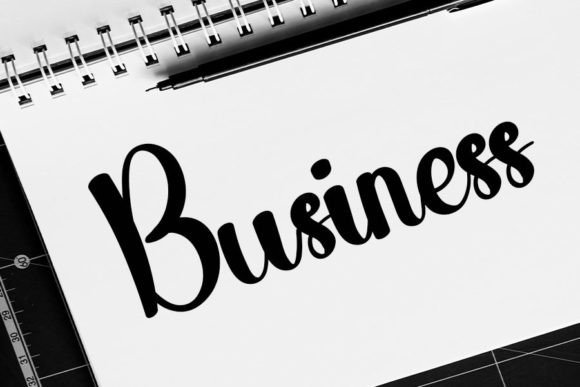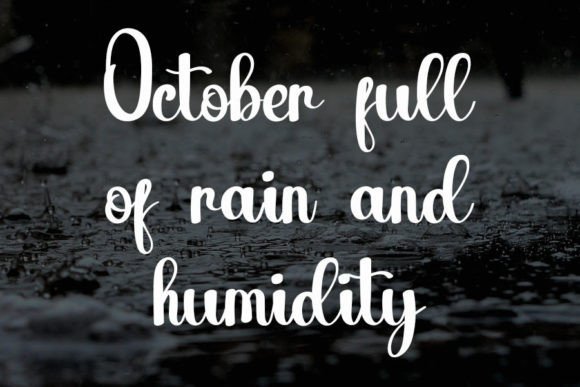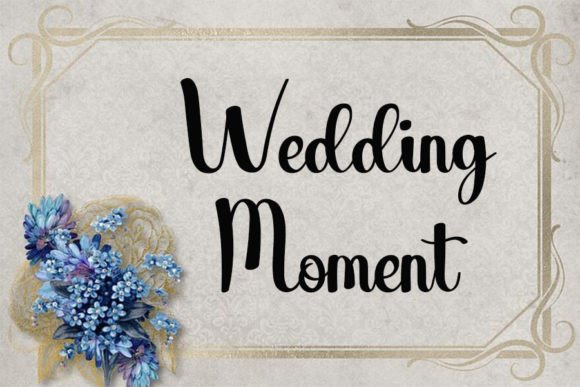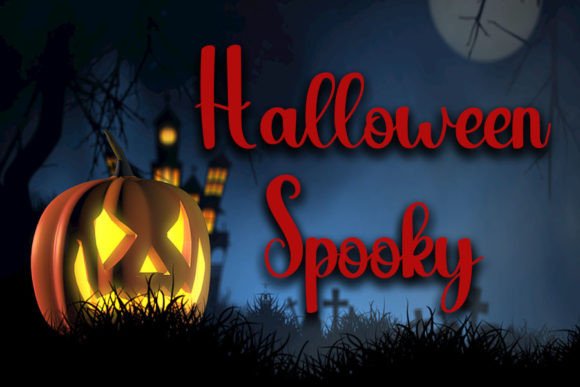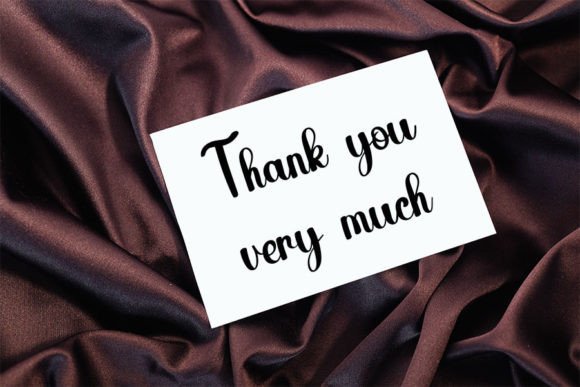
Smile Baby Font
About Smile Baby Font
Smile Baby is a cute and casual handwritten font with an incredibly friendly feel. Whether you’re looking for fonts for Instagram or calligraphy scripts for DIY projects, this font will turn any creative idea into a true piece of art!